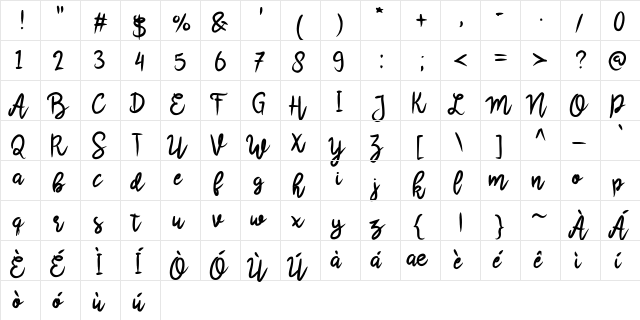
Scrivimi Medium
| Foundry | GUD aka Giulia Ursenna Dorati |
| Designer | GUD Giulia Ursenna Dorati |
Design Context for Scrivimi Typeface
Scrivimi is a composed and adaptable typeface that performs quietly and consistently across a wide range of design contexts.